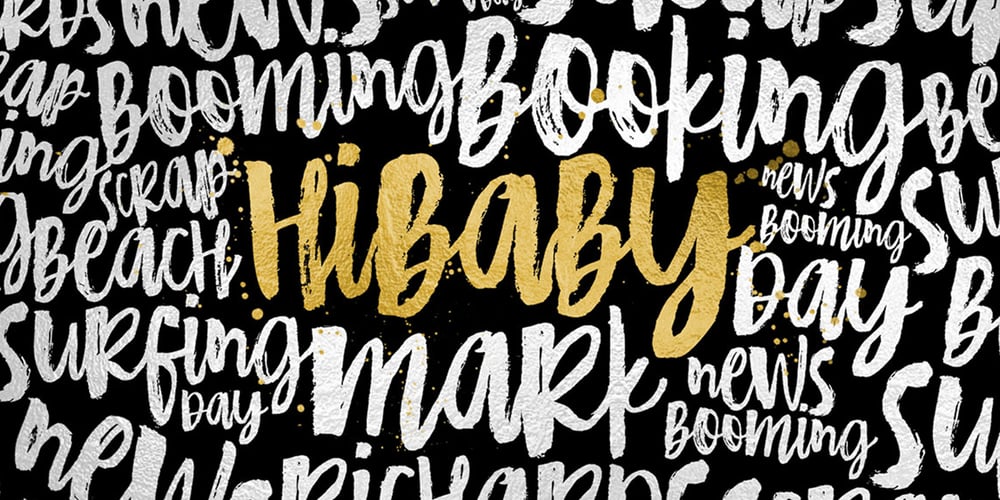
HiBaby
HiBaby font
HiBaby Font Family was designed by Mauli Zari and published by Dhan Studio. HiBaby contains 1 styles and family package options. HiBaby is a beautiful hand-painted font, with an organic, fun design and with a mixture of lowercase and uppercase, making it interesting and unique. This fonts can be used for various purposes such as headings, signature, logos, wedding invitations, t-shirts, letterhead, signage, labels, news, posters, badges etc.